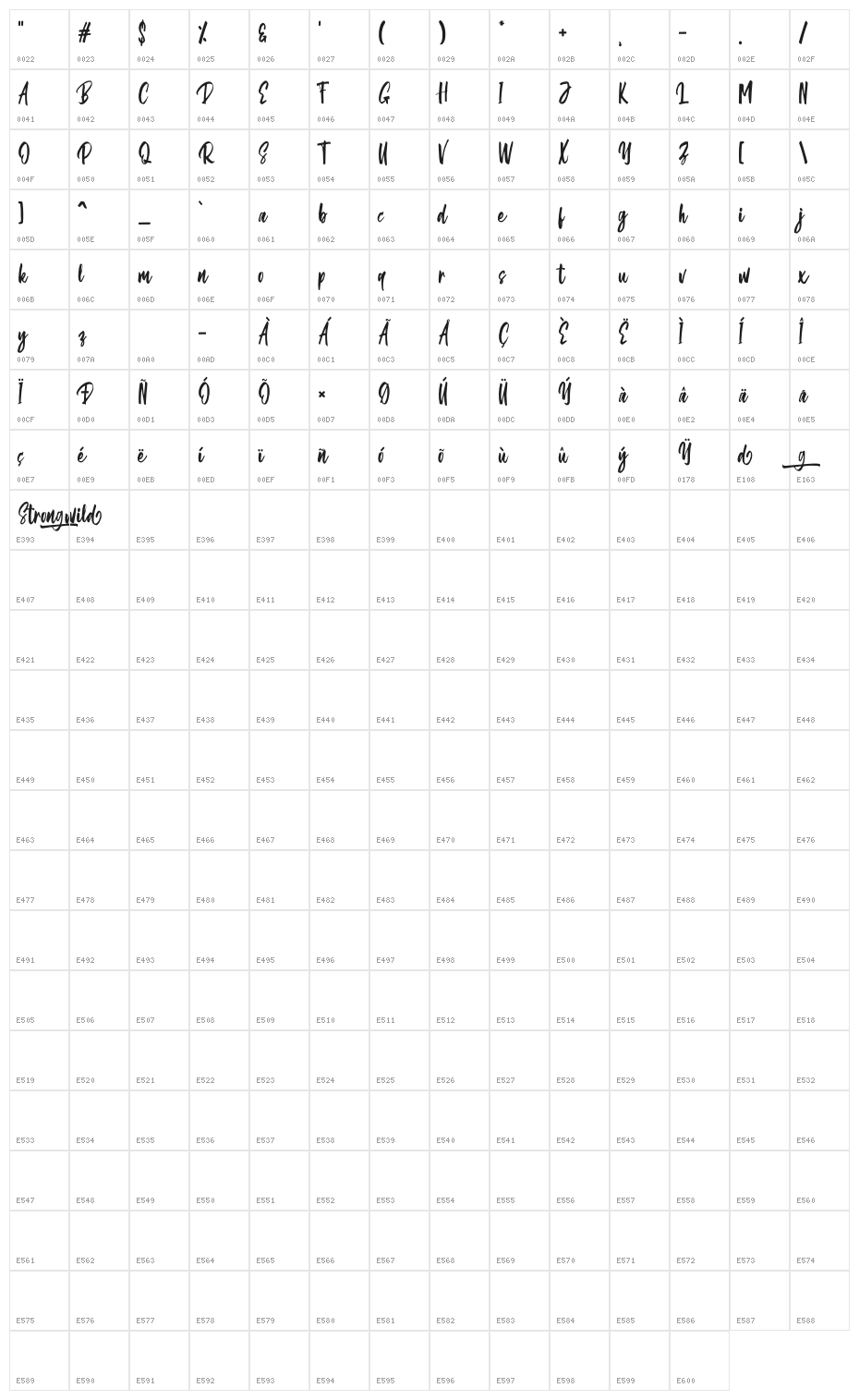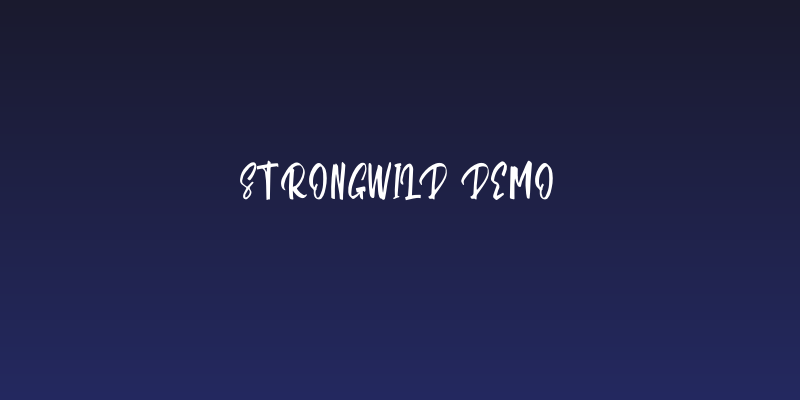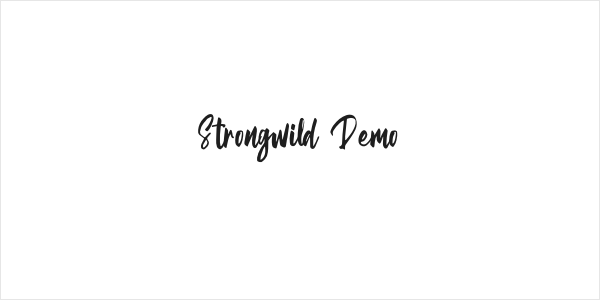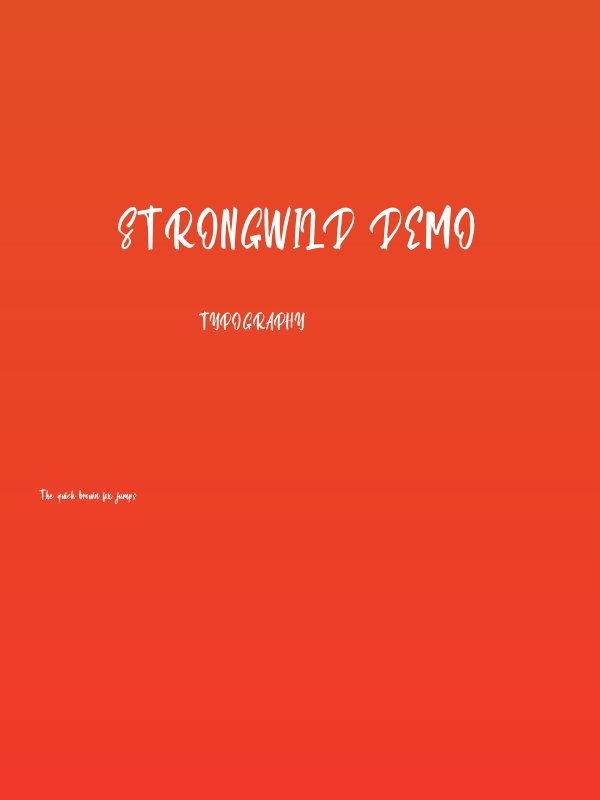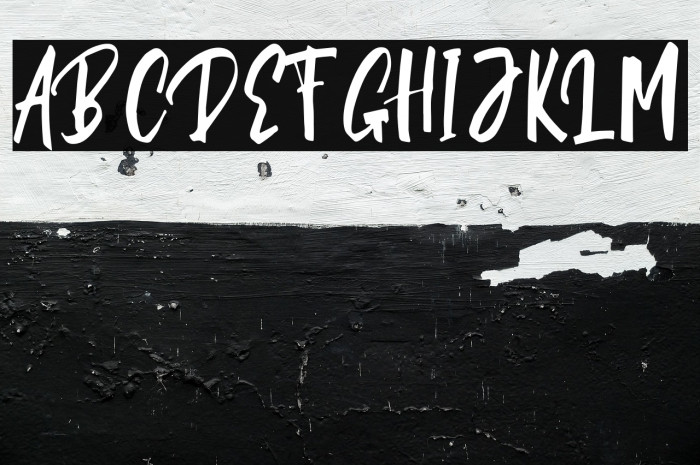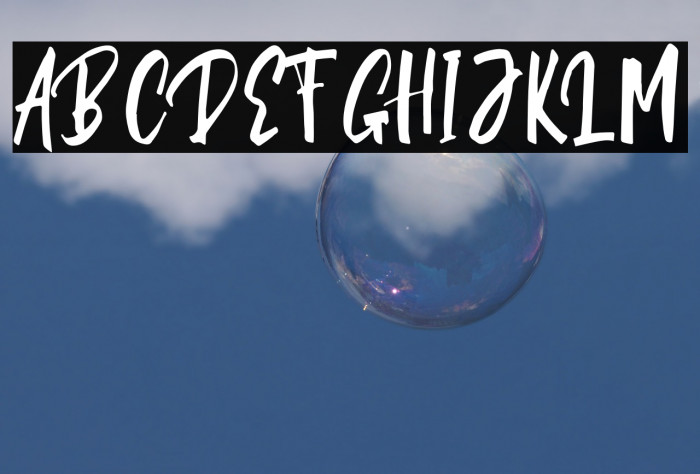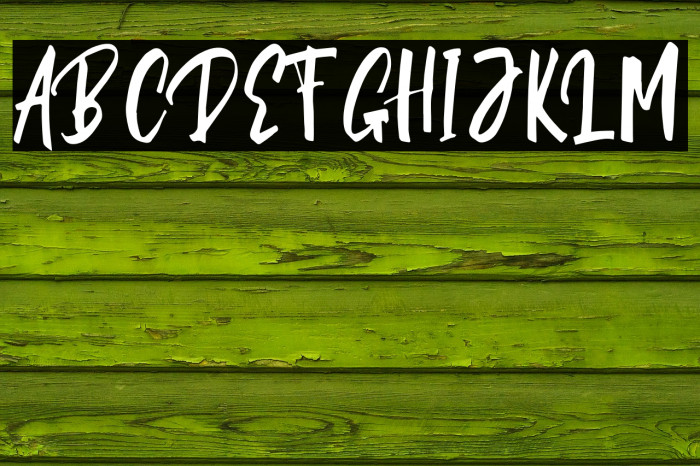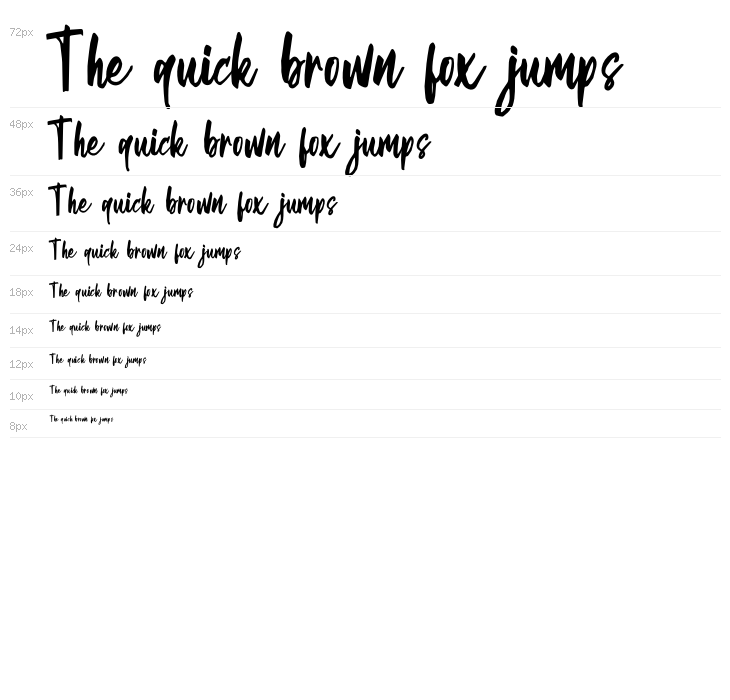
Strongwild Demo Font
Strongwild Demo Description
This font features a bold and energetic script style, characterized by its thick, brush-like strokes and dynamic flow. The uppercase letters are bold and commanding, while the lowercase letters maintain a playful and casual feel. The font includes a full set of uppercase and lowercase letters, numbers, and a variety of special characters. Its hand-drawn appearance gives it a personal and artistic touch, making it ideal for creative projects. The overall design is modern yet retains a sense of vintage charm, suitable for a variety of design needs.
| Proposed Projects | Ideal for branding, logo design, posters, and social media graphics where a bold, artistic touch is needed. |